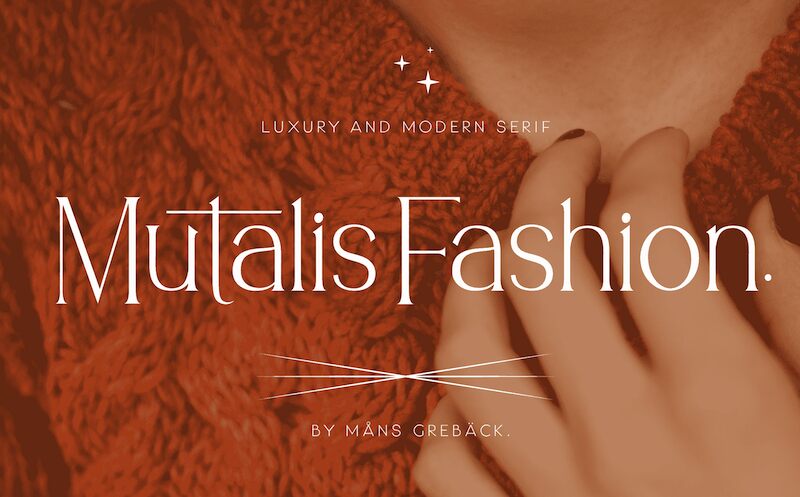
Mutalis Fashion, designed by the talented Mans Greback, is a stunning serif font that exudes elegance and sophistication. With its semi-light weight, this font is perfect for projects that require a refined touch without being too heavy-handed. Its classic style makes it suitable for fashion and beauty brands, as well as luxury goods and high-end lifestyle publications. Mutalis Fashion's clean lines and timeless appeal also make it ideal for wedding invitations, menus, and other formal event materials. Elevate your design with Mutalis Fashion - the epitome of glamour and grace in typography.